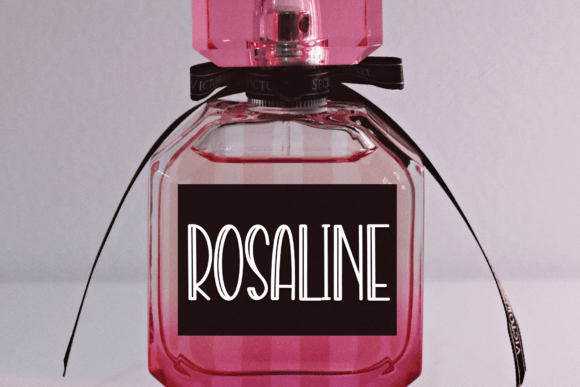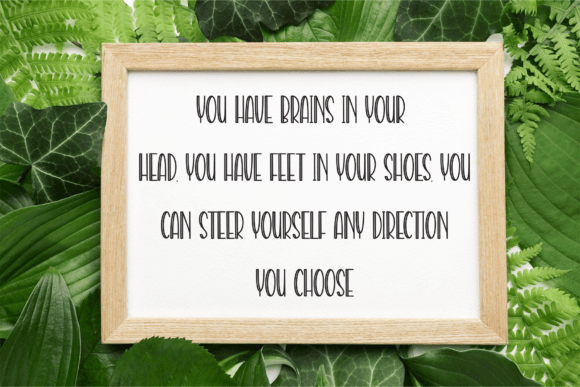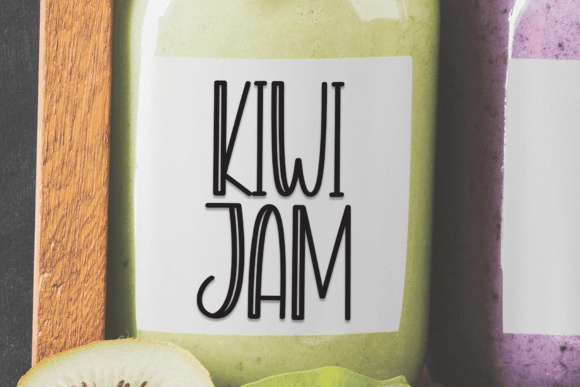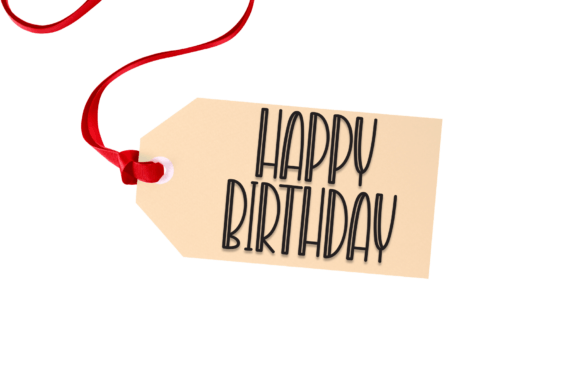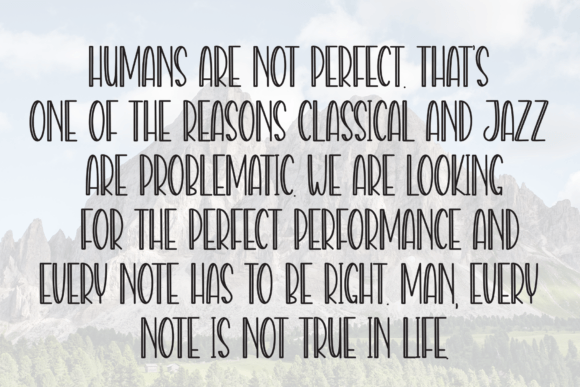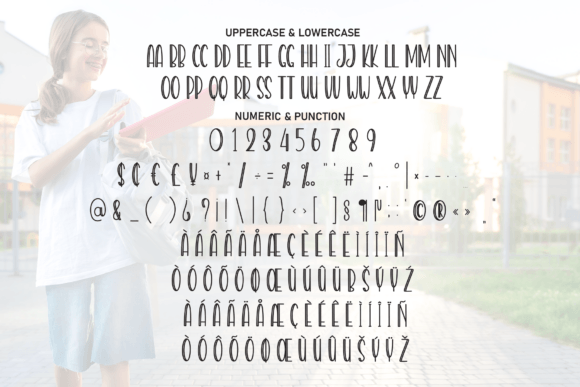
The Ultimate Guide to the Best School Font: A Friendly and Bold Display Font
I’ll never forget the time I was working on a school project poster, and I just couldn’t find the right font to make it pop. My client (a.k.a. my teacher) wanted something fun, yet clear and easy to read. That’s when I stumbled upon the Best School font, and it instantly became my go-to for all my school-related design projects.
Best School is a friendly and bold display font that’s perfect for school projects and fun events. Its clear letters make it easy to read, and its playful style adds a cheerful touch to posters, invitations, and more!
- ✅ Clear and easy to read, even at smaller sizes
- ✅ Playful and cheerful vibe that’s perfect for school projects and events
- ✅ Highly versatile and can be used for a variety of design projects
- ✅ Works well with both digital and print designs
- ⚠️ Limited support for non-English characters
- ⚠️ Not suitable for body text or long-form reading due to its bold and playful style
- Schoolhouse Rock: A fun and playful font that’s perfect for school projects and events. It’s got a similar vibe to Best School, but with a slightly more distressed look.
- Learning Curve: A bold and modern font that’s perfect for headings and titles. It’s got a similar sense of playfulness to Best School, but with a more geometric look.
- Teacher’s Pet: A friendly and approachable font that’s perfect for school projects and events. It’s got a similar sense of warmth to Best School, but with a slightly more elegant look.
- Student Council: A bold and confident font that’s perfect for headings and titles. It’s got a similar sense of authority to Best School, but with a more modern look.
The Designer Inspiration Behind Best School Font
The Best School font was designed with the goal of creating a friendly and approachable font that’s perfect for school projects and events. The designer wanted to create a font that’s both fun and clear, making it easy to read and understand. The result is a font that’s both playful and professional, making it perfect for a wide range of design projects.
Q: What is the Best School font?
A: The Best School font is a friendly and bold display font that’s perfect for school projects and events. Its clear letters make it easy to read, and its playful style adds a cheerful touch to posters, invitations, and more!
Q: What are some similar fonts to Best School?
A: Some similar fonts to Best School include Schoolhouse Rock, Learning Curve, Teacher’s Pet, and Student Council. Each of these fonts has its own unique personality and style, but they all share a similar sense of playfulness and friendliness.